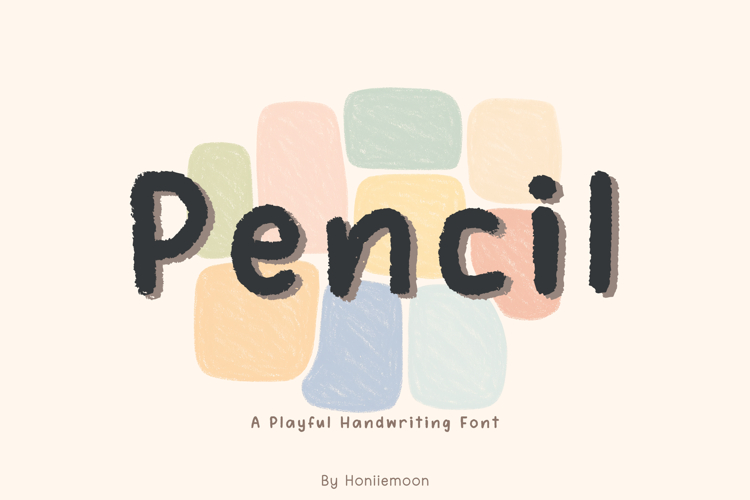
Add a touch of handmade charm to your next project with Pencil, a playful and friendly handwriting font designed to capture the innocence and creativity of childhood. With its soft, pencil-textured edges and legible characters, this font is perfect for creators, teachers, and parents alike.